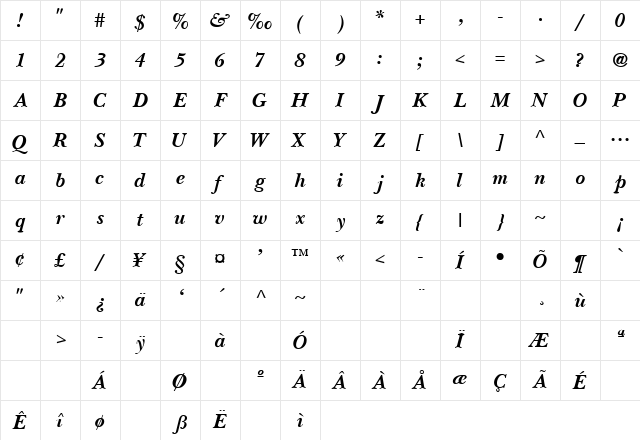
BaskervilleSSK Bold Italic
Design Context for BaskervilleSSK
BaskervilleSSK is a composed and adaptable typeface that performs quietly and consistently across a wide range of design contexts. The slanted form adds forward momentum and visual energy. Its bold stroke weight gives it real presence on the page.
Pro Tip: Use BaskervilleSSK for emphasis, pull quotes, and subheadings where its slanted energy can add rhythm to the layout.